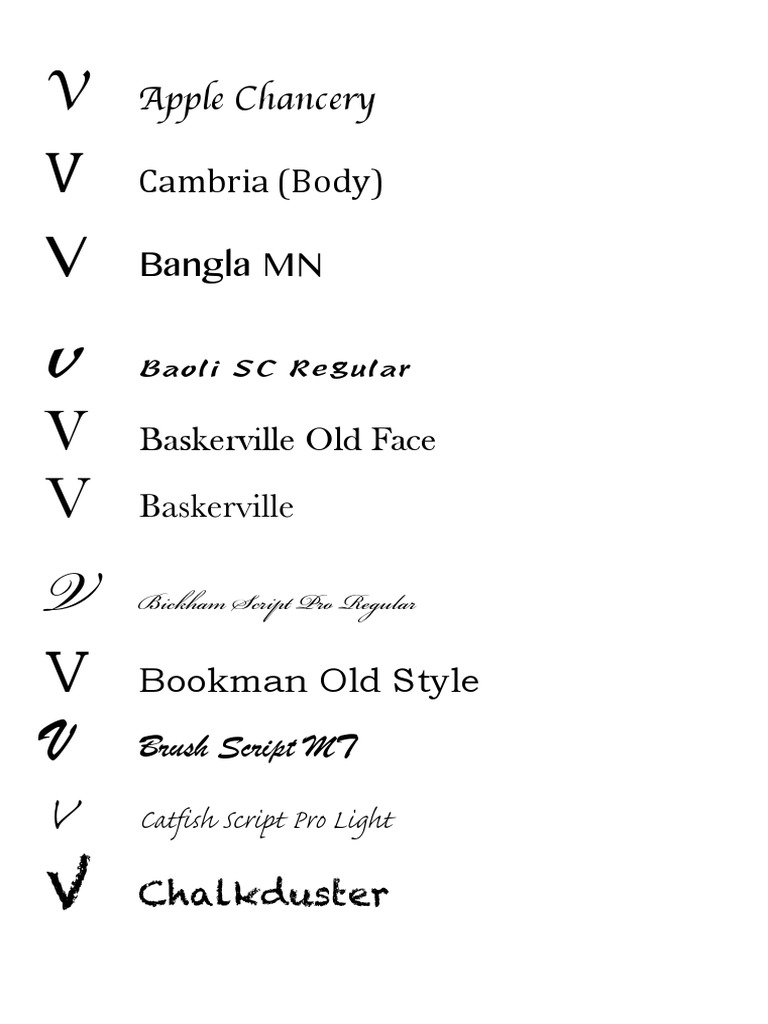
Apple Chancery Font
Styles Of Apple Chancery Font You’ll locate that script fonts come in many extraordinary patterns, from fashionable, to a laugh and informal, at handdrawn Promesh is a formidable, serif, athleticlooking font This font was i one the most used font in olden days as it was found very attractive and affordable. Similar free fonts and alternative for Apple Chancery Felipa, Reynolds Chancery Deux, Mistress Script Alternates, Symphony in ABC, Gaze Bold, TrumanScript. Apple Chancery Font, Download Apple Chancery ttf truetype or zip Free Free Windows Fonts for Donwload.
Apple Chancery font is the script font family and Apple was designed The base of this font is chancery handwriting style and available in 1 style The typeface is also a sizzling favorite for a lot of designers who ought to create designs regarding regulation, marriage, religion, and things concerning the past. The Apple Chancery font is converted to Calibri anywhere it is used in the document when using the electronic Distribution option I haven't tested to determine whether other fonts are affected Please use the ☺︎ at the right end of the Word Ribbon to report this to the development team Include a reference to this thread. Search results for 'Chancery' (free Chancery fonts) Total Fonts 15 495k views Black Chancery Download k views Offenbach Chancery Download 101k views Chancery Bold Download 7k views Chancery Ornaments SSi Download 163k views.
Apple Chancery is a script typeface designed by Apple that comes bundled with their operating system The design is based off the chancery style of handwriting and features unconnected letters The family is available in a single style Get Apple Chancery →. Typography Apple Chancery More About the Apple Chancery Apple chancery strikes me as the type of font that will be seen in beauty magazines or high class movies Its a good font to use in those cases It is used more commonly as a title font Because of it's swishes in the. The ITC Zapf Chancery® typeface has been seen by just about everyone who uses a personal computer In particular, one member of the family – Medium Italic – has been selected (or not) by millions of designers and nondesigners alike In the mid’80s, ITC Zapf Chancery Medium Italic was chosen as one of the original Apple LaserWriter core font set.